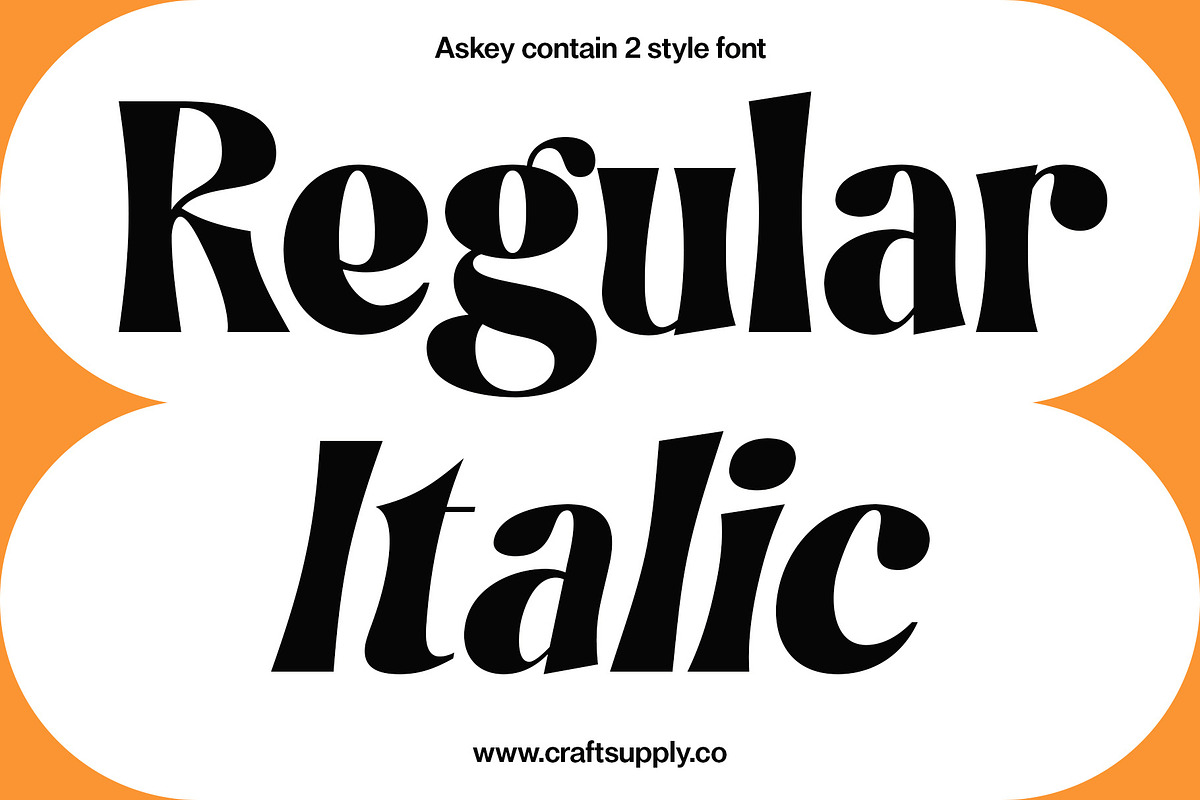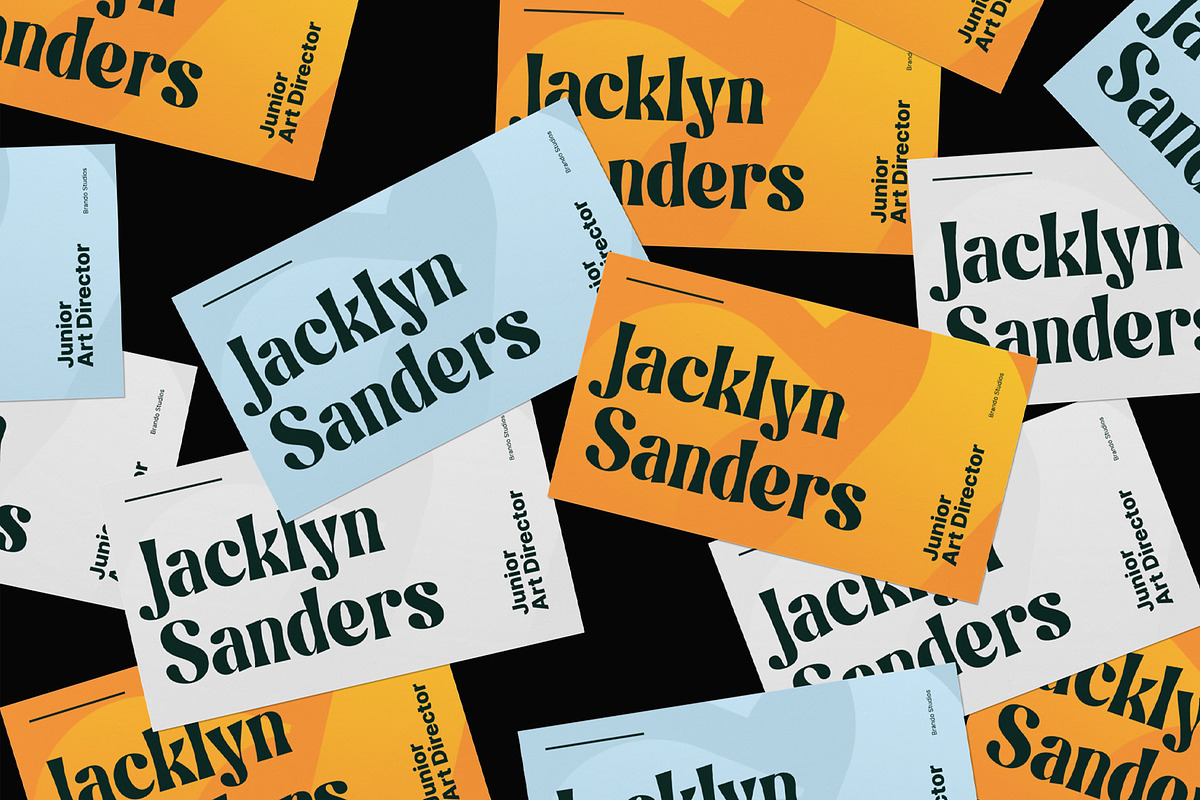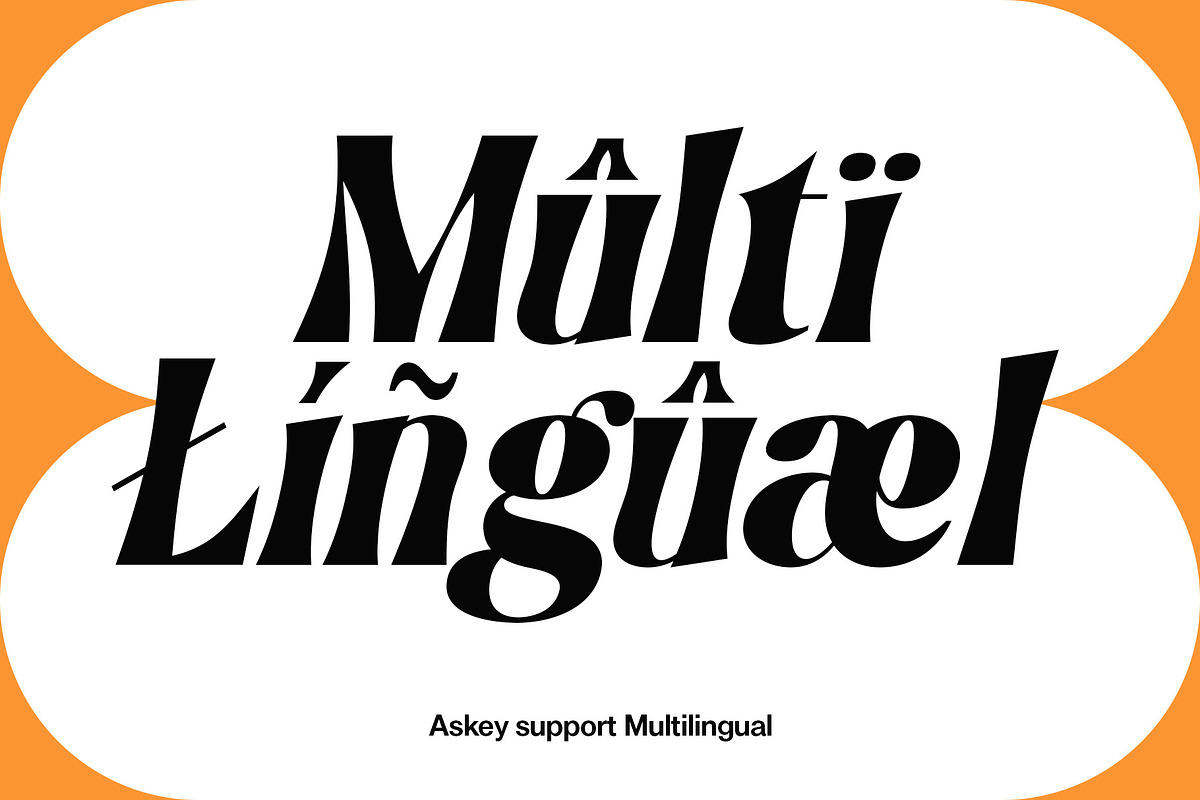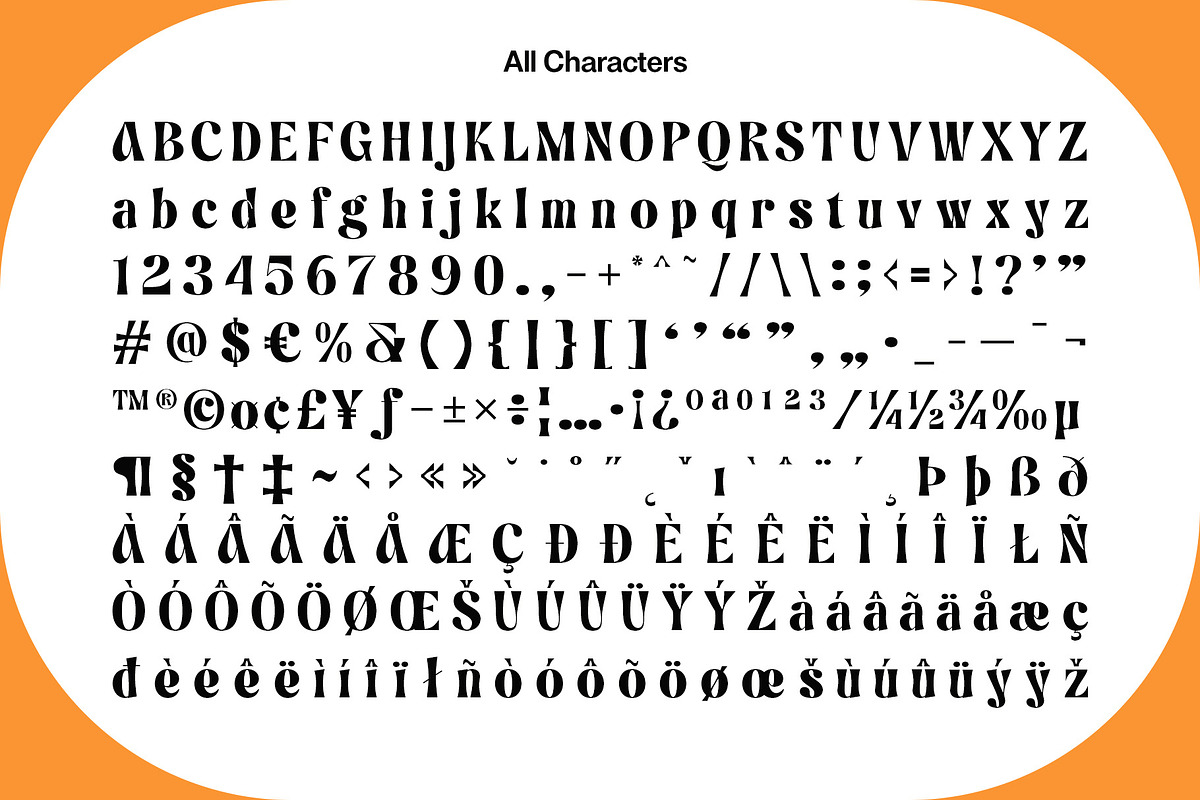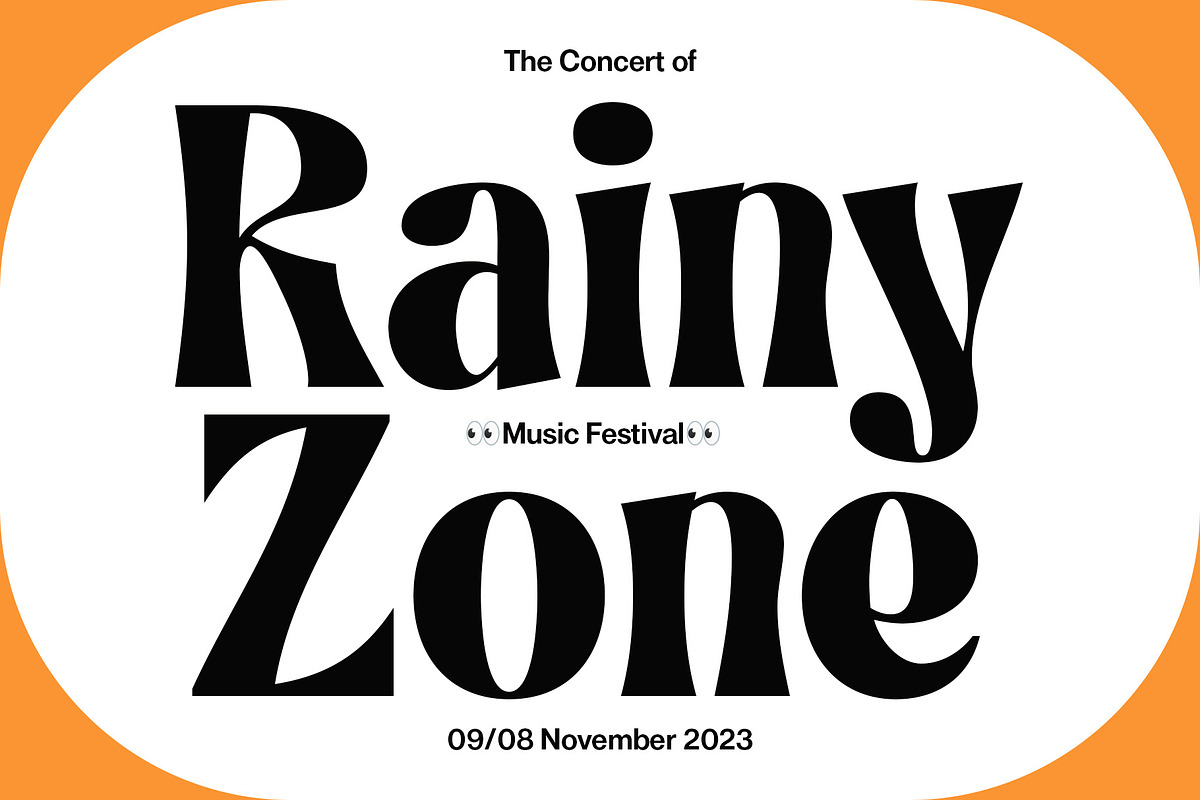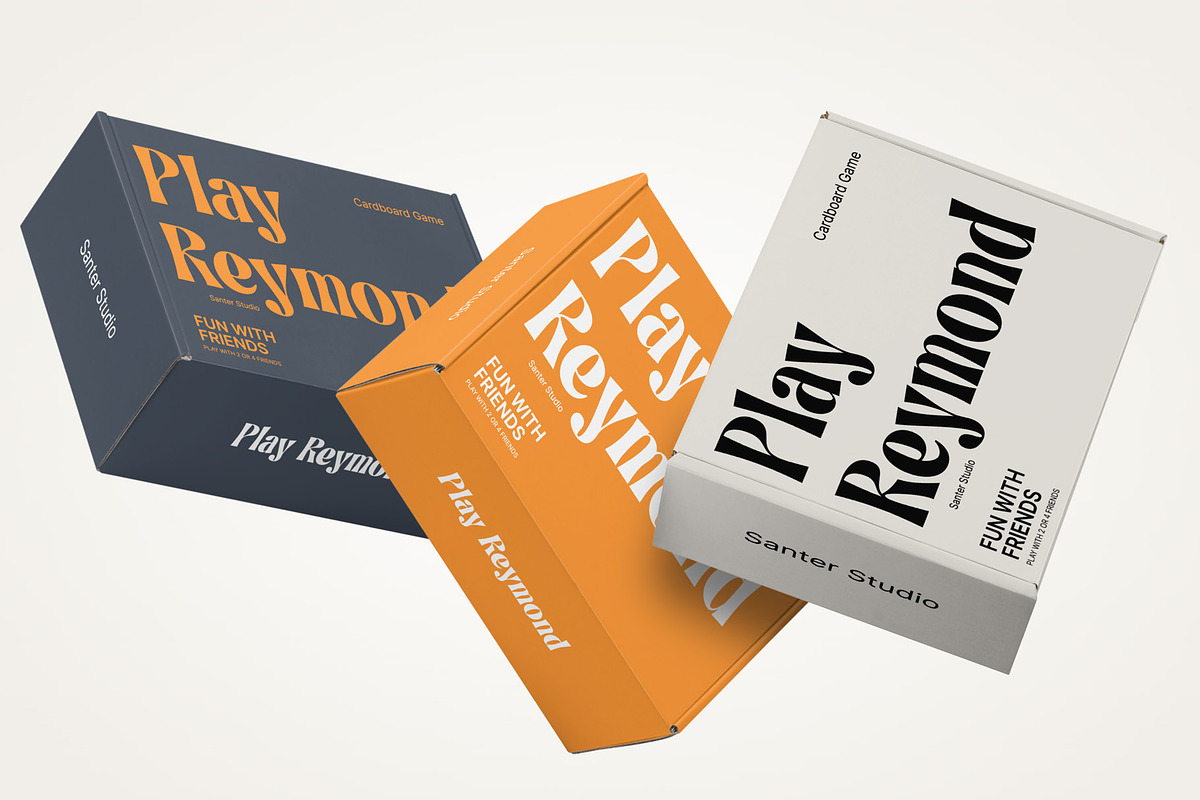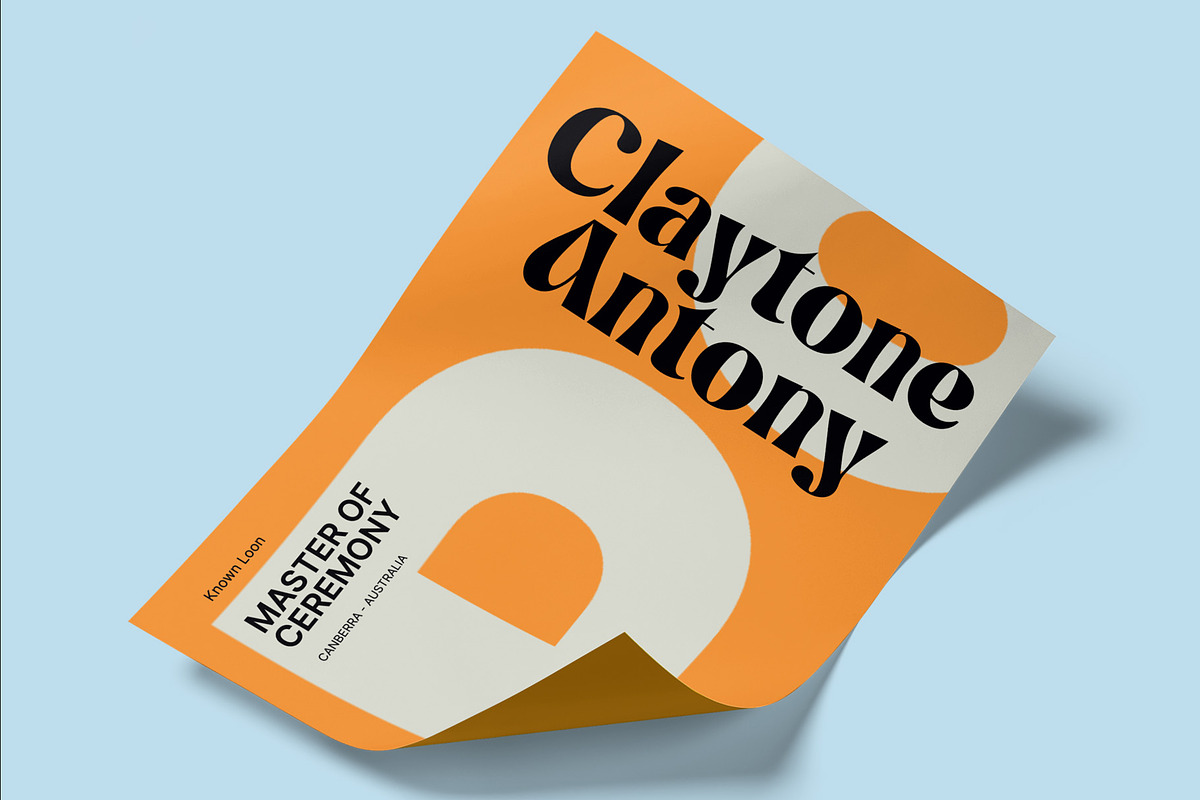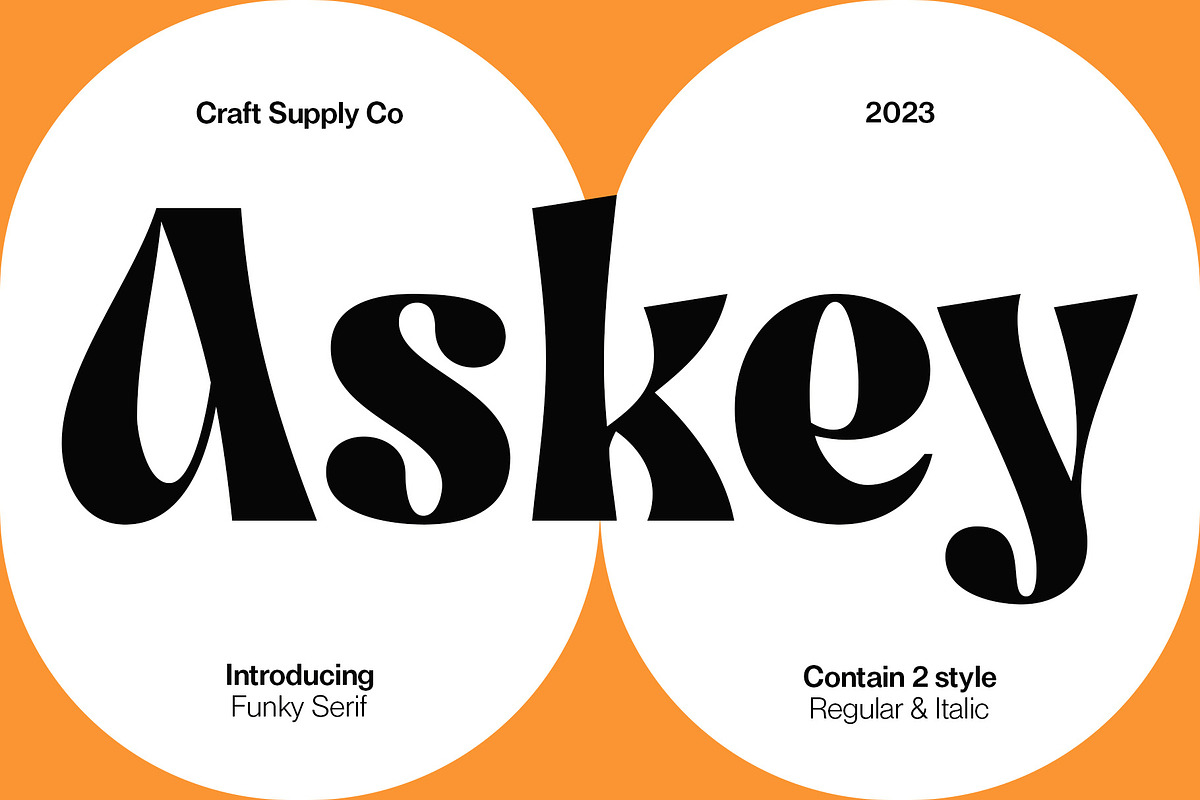
Askey - Funky Serif
Askey - The Funky Serif Font is a bold and expressive typeface that channels the spirit of funk and creativity. With its unique and unconventional serifs, Askey exudes a sense of artistic flair and individuality.
This font is perfect for projects that seek to make a statement and stand out from the crowd. Whether you're working on posters, album covers, or any design that demands a touch of funkiness, Askey adds a distinctive and charismatic charm. Askey is like a burst of creativity in the world of typography, making it an ideal choice for projects that want to embrace a bold and unconventional style, exuding confidence and originality.
- Askey Regular
- Askey Italic